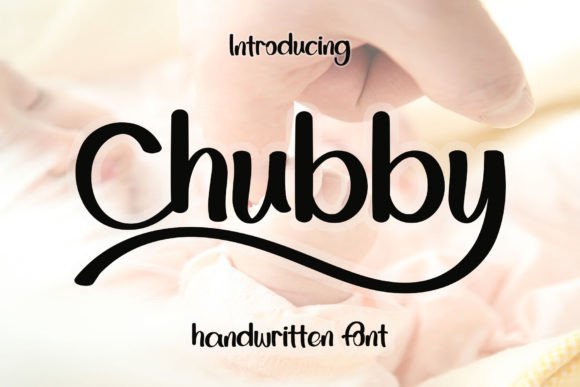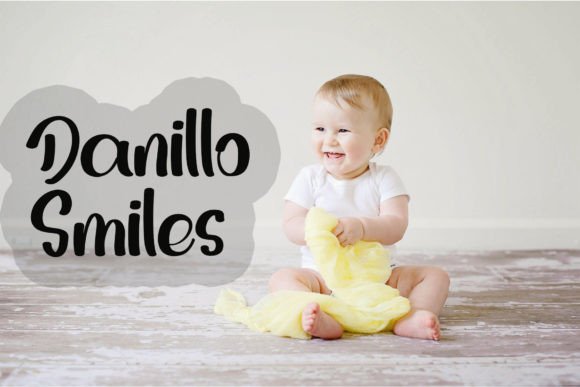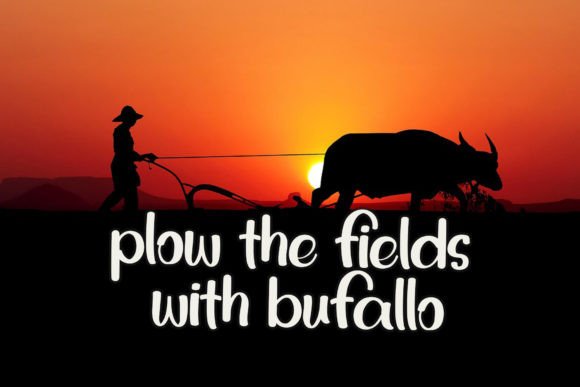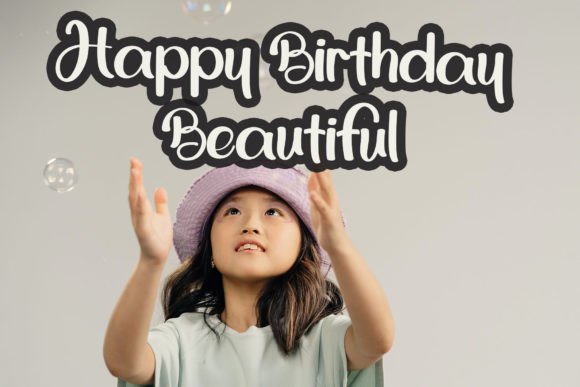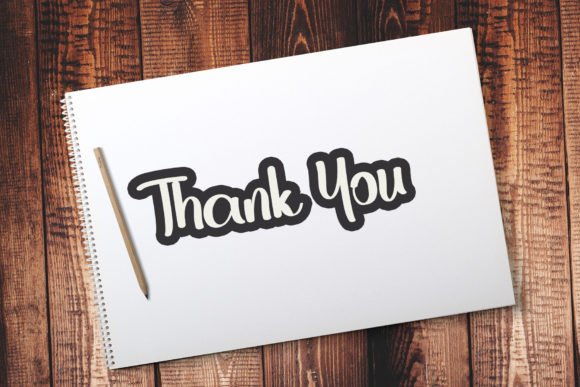
Discover the Timeless Charm of Chubby Font
There’s something magical about a blank canvas, waiting to be transformed into a masterpiece. As creatives, we’ve all been there – staring at a blank page, our minds racing with ideas, and our fingers itching to bring them to life. And then, it happens – a spark of inspiration strikes, and our imagination runs wild. For designers, finding the perfect font can be just that spark that sets their creativity ablaze.
Enter Chubby Font, a beautiful handwritten font that exudes elegance and sophistication. With its unique and timeless style, Chubby Font is the perfect addition to any project. Whether you’re designing a wedding invitation, a brand identity, or a social media graphic, Chubby Font is sure to add a touch of warmth and personality to your work. And for designers, its value lies in its versatility – it’s perfect for creating stunning headings, captions, and even entire typographic compositions.
Chubby Font Key Features
- Character Set: The font includes a comprehensive set of characters, including uppercase and lowercase letters, numbers, punctuation marks, and special symbols, making it suitable for various types of text.
- Unique Characteristics: Chubby Font features a distinctive, rounded design with a subtle flair, giving it a friendly and approachable feel that is perfect for informal and formal applications alike.
Designer Review: Chubby Font
Overall, I think Chubby Font is a unique and interesting choice for designers looking to add some personality to their projects. Here are some things that work well:
- ✨ The font is incredibly playful and fun to use, making it perfect for projects that require a lighthearted tone.
- ✨ The bold and chunky style of the font really makes it stand out, especially when used in headlines or titles.
- ✨ Chubby Font is highly customizable, allowing designers to adjust the weight, spacing, and other settings to suit their needs.
However, there are some limitations to keep in mind:
- ⚠️ The font may not be the best choice for projects that require a more professional or formal tone.
- ⚠️ Some users may find the font to be too overwhelming or busy, especially in smaller text sizes.
- ⚠️ The font’s chunky style may not be suitable for projects that require precise typography or intricate details.
Overall, I think Chubby Font is a great choice for designers who want to add some whimsy and personality to their projects. While it may not be suitable for every project, it’s definitely worth considering for projects that require a fun and playful tone.
Chubby Font is perfect for adding a playful touch to your social media graphics, blog posts, or marketing materials.
Chubby Font is ideal for creating bold and playful designs for print materials, posters, or brochures.
Chubby Font is perfect for adding a touch of personality to your presentations, reports, or documents.
Alternatives to Chubby Font
Playfair Display is an elegant, high-end serif font that adds a touch of sophistication to any design. It’s ideal for use in titles, headings, and other high-impact areas where a luxurious feel is desired.
Compared to Chubby Font, Playfair Display has a more refined and classic appearance, making it suitable for formal and upscale projects. It’s a good choice when you want to create a sense of luxury and high-end quality.